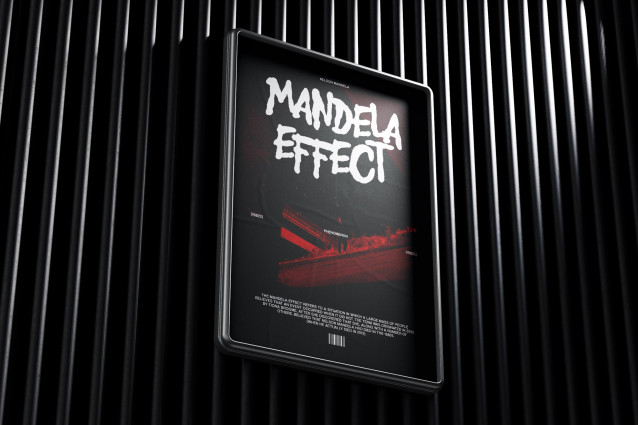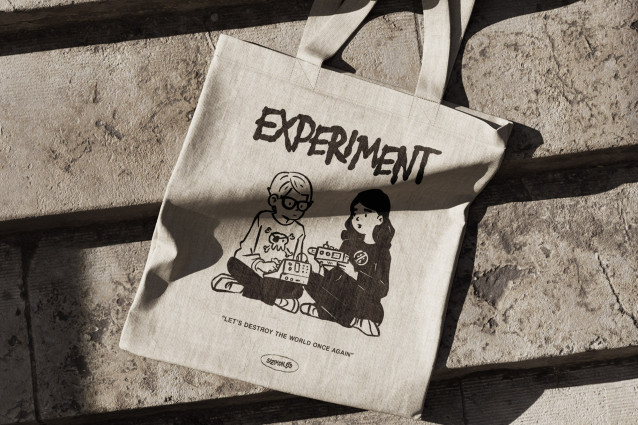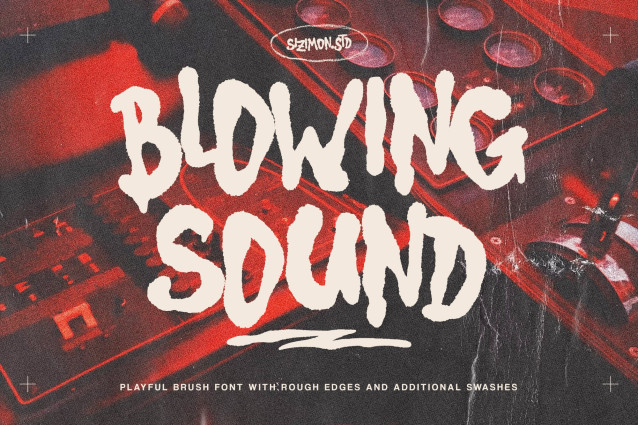
Blowing Sound Font
Blowing sound font is hand Brush script fonts. Very cool for logos, name tag, handwritten quotes, product packaging, merchandise, social media & greeting cards. And very easy to make design t-shirts and other products. Very save time in making the design of a product. It contains a full set of lower & uppercase letters, a large range of punctuation, numerals, and multilingual support.